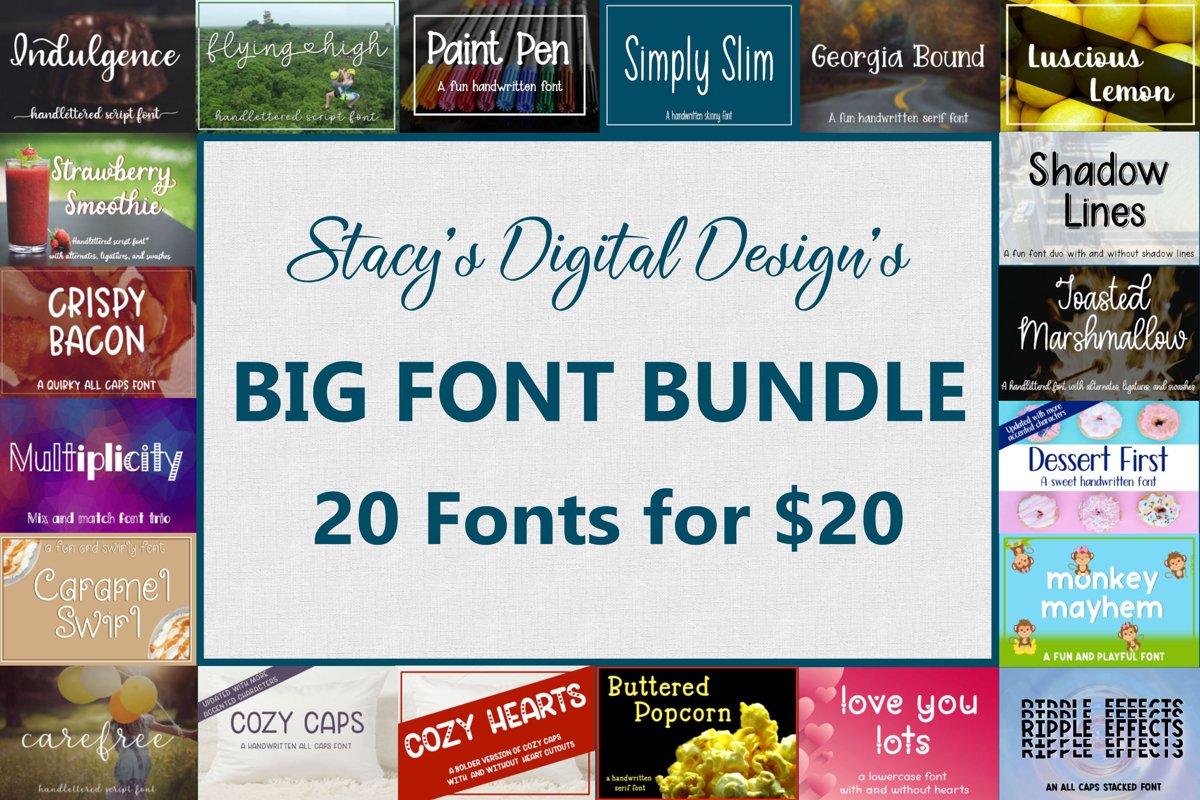
Big Font Bundle - 20 Handwritten Fonts
I bundled TWENTY of my handwritten fonts together to create this Big Font Bundle!!! This is a versatile collection that can be used for a variety of projects!!!  For only $20, you'll get the full version of each of the fonts listed below.  $200 Value!!!
Indulgence - https://fontbundles.net/stacysdigitaldesigns/194754-indulgence-a-handlettered-script-font
Flying High - https://fontbundles.net/stacysdigitaldesigns/347730-flying-high-a-handlettered-script-font
Paint Pen - https://fontbundles.net/stacysdigitaldesigns/234919-paint-pen-a-fun-handwritten-font
Simply Slim - https://fontbundles.net/stacysdigitaldesigns/283864-simply-slim-a-handwritten-skinny-font
Georgia Bound - https://fontbundles.net/stacysdigitaldesigns/202787-georgia-bound-a-fun-handwritten-serif-font
Luscious Lemon - https://fontbundles.net/stacysdigitaldesigns/374628-luscious-lemon-a-thick-script-font
Strawberry Smoothie - https://fontbundles.net/stacysdigitaldesigns/276427-strawberry-smoothie-a-handlettered-script-font
Crispy Bacon - https://fontbundles.net/stacysdigitaldesigns/247220-crispy-bacon-a-quirky-all-caps-font
Multiplicity - https://fontbundles.net/stacysdigitaldesigns/242637-multiplicity-a-font-trio
Caramel Swirl - https://fontbundles.net/stacysdigitaldesigns/365032-caramel-swirl-a-fun-and-swirly-font
Shadow Lines - https://fontbundles.net/stacysdigitaldesigns/215573-shadow-lines-a-fun-font-duo-with-and-without-sha....
Toasted Marshmallow - https://fontbundles.net/stacysdigitaldesigns/230985-toasted-marshmallow-a-handlettered-script-font
Dessert First - https://fontbundles.net/stacysdigitaldesigns/147466-dessert-first-a-sweet-handwritten-font
Monkey Mahem - https://fontbundles.net/stacysdigitaldesigns/418506-monkey-mayhem-a-fun-and-playful-font
Carefree  - https://fontbundles.net/stacysdigitaldesigns/251715-carefree-a-handlettered-script-font
Cozy Caps - https://fontbundles.net/stacysdigitaldesigns/135629-cozy-caps-a-handwritten-all-caps-font
Cozy Hearts - https://fontbundles.net/stacysdigitaldesigns/431643-cozy-hearts-font-a-bolder-version-of-cozy-caps-w....
Buttered Popcorn - https://fontbundles.net/stacysdigitaldesigns/258185-buttered-popcorn-a-handwritten-serif-font
Love You Lots - https://fontbundles.net/stacysdigitaldesigns/269830-love-you-lots-a-lowercase-font-with-and-without-....
Ripple Effects - https://fontbundles.net/stacysdigitaldesigns/423199-ripple-effects-an-all-caps-stacked-font